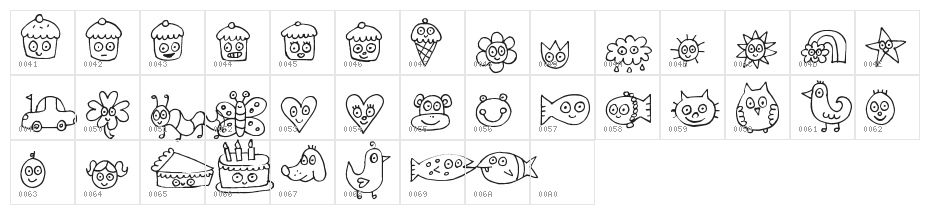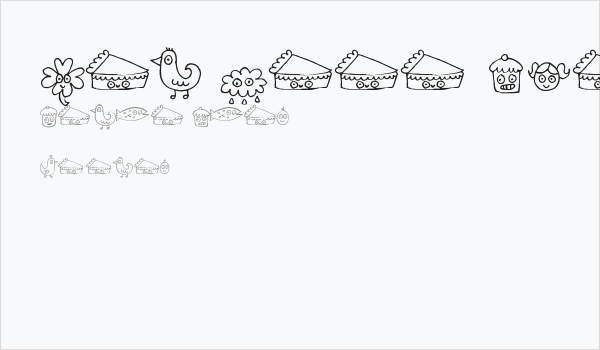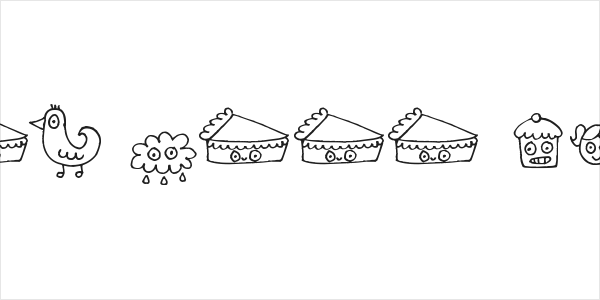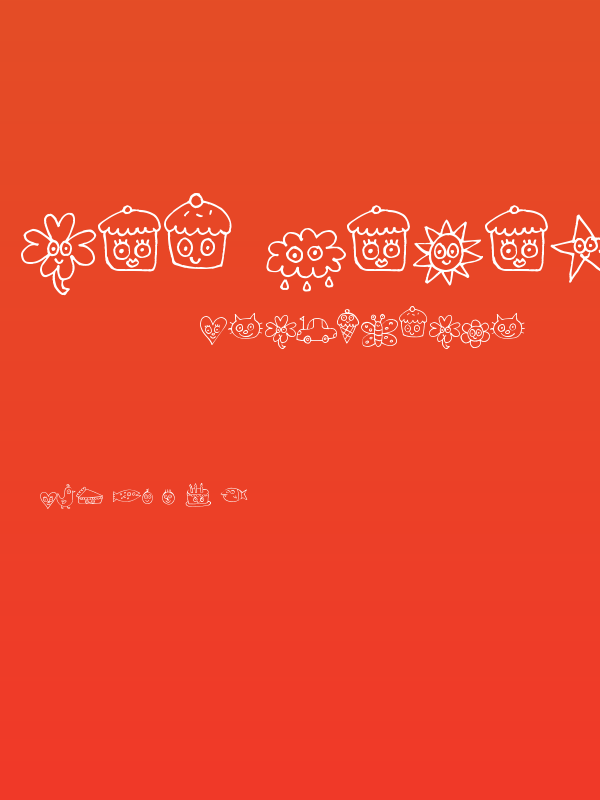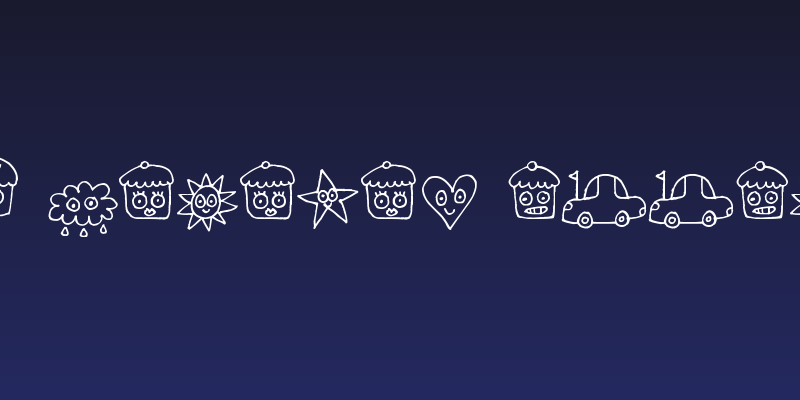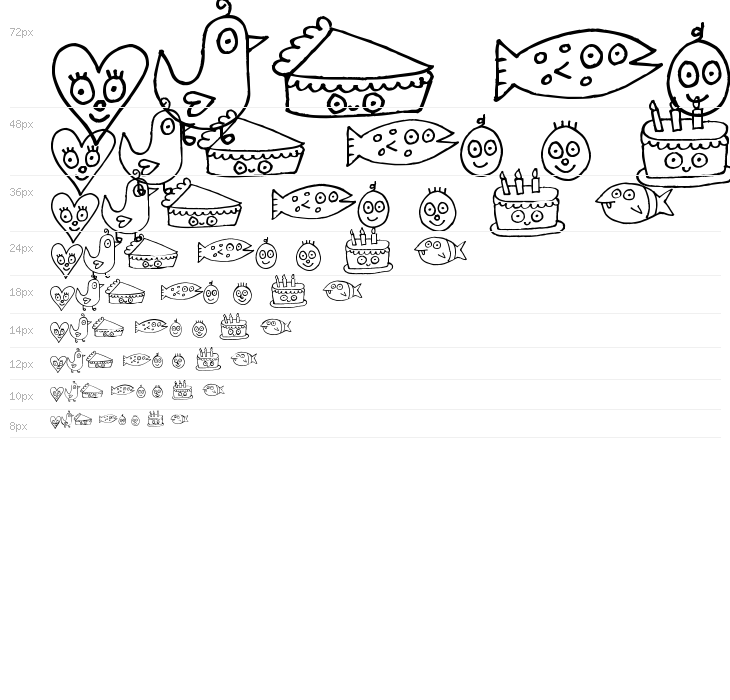
Pea Jelene's Doodles Font
Pea Jelene's Doodles Description
This is a whimsical and playful collection of doodle-style illustrations. Each character is hand-drawn with a quirky and fun aesthetic, featuring a variety of cute and imaginative designs such as cupcakes, flowers, animals, and other charming motifs. The style is informal and light-hearted, making it perfect for projects that require a touch of creativity and humor. The doodles are consistent in their line weight, giving a cohesive look across the set. The overall appearance is friendly and approachable, ideal for engaging a younger audience or adding a playful element to any design.
Overall StylePlayful, Whimsical
Use CaseIllustrations, Decorative elements
Proposed ProjectsIdeal for children's books, greeting cards, playful branding, and educational materials.